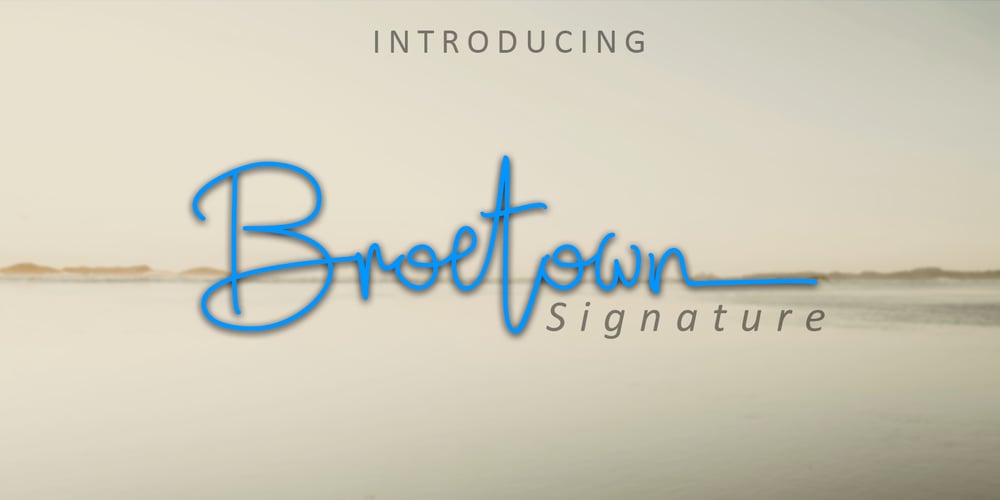
Broetown Signature Font Family was designed by Oki Candra Setiawan and published by OCSstudio. Broetown Signature contains 1 styles and family package options. Introducing Broetown Signature, a stylish handwritten font with signature style. This beautiful script font offers a personal touch to your latest art project with an elegant, classy and modern look. Broetown Signature offers gorgeous features that will perfect for many different project such as logos, branding, invitation, stationery, wedding designs, social media posts, advertisements, product packaging, product designs, label, photography, watermark, special events or anything that needs a handwritten look.